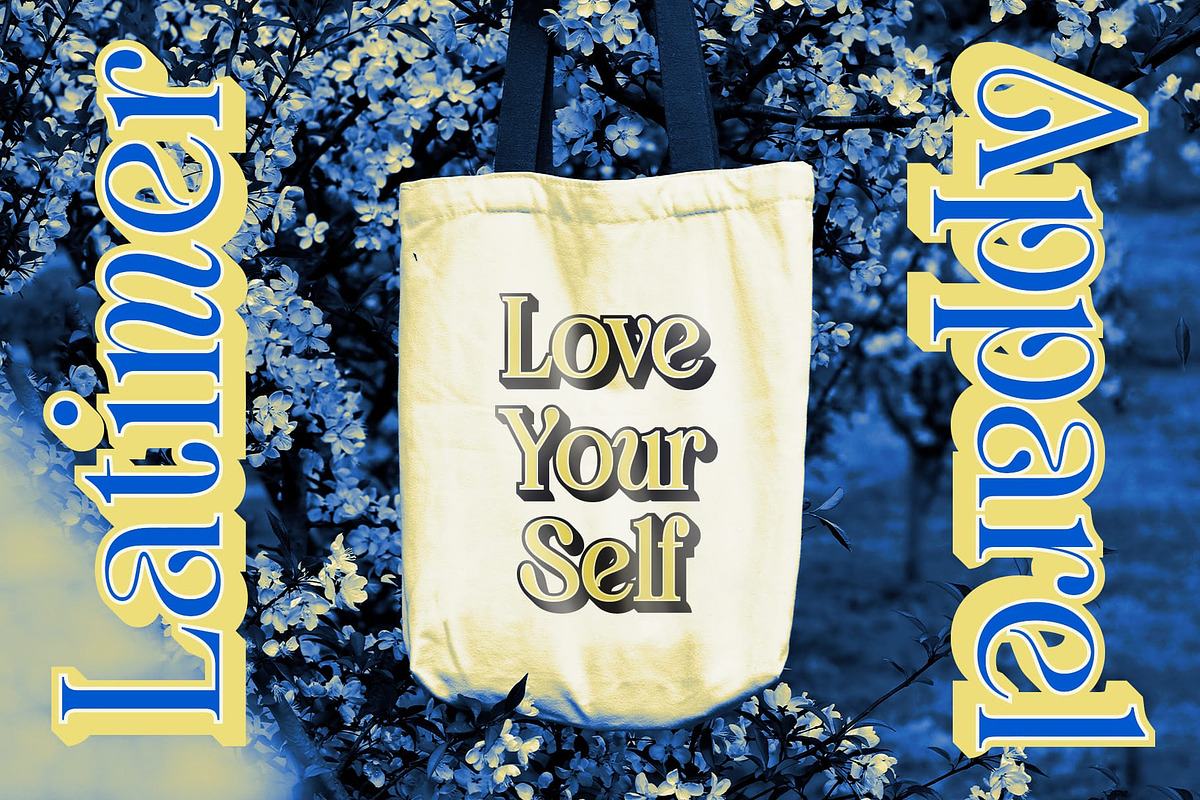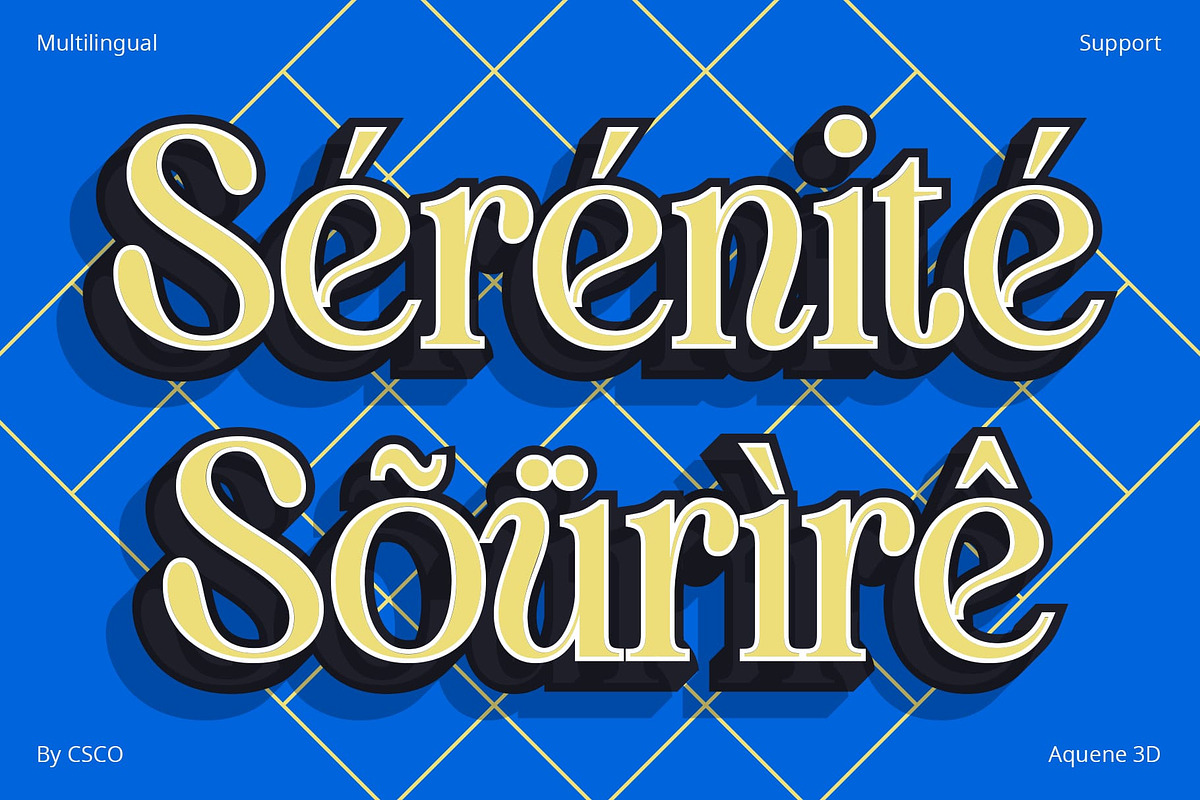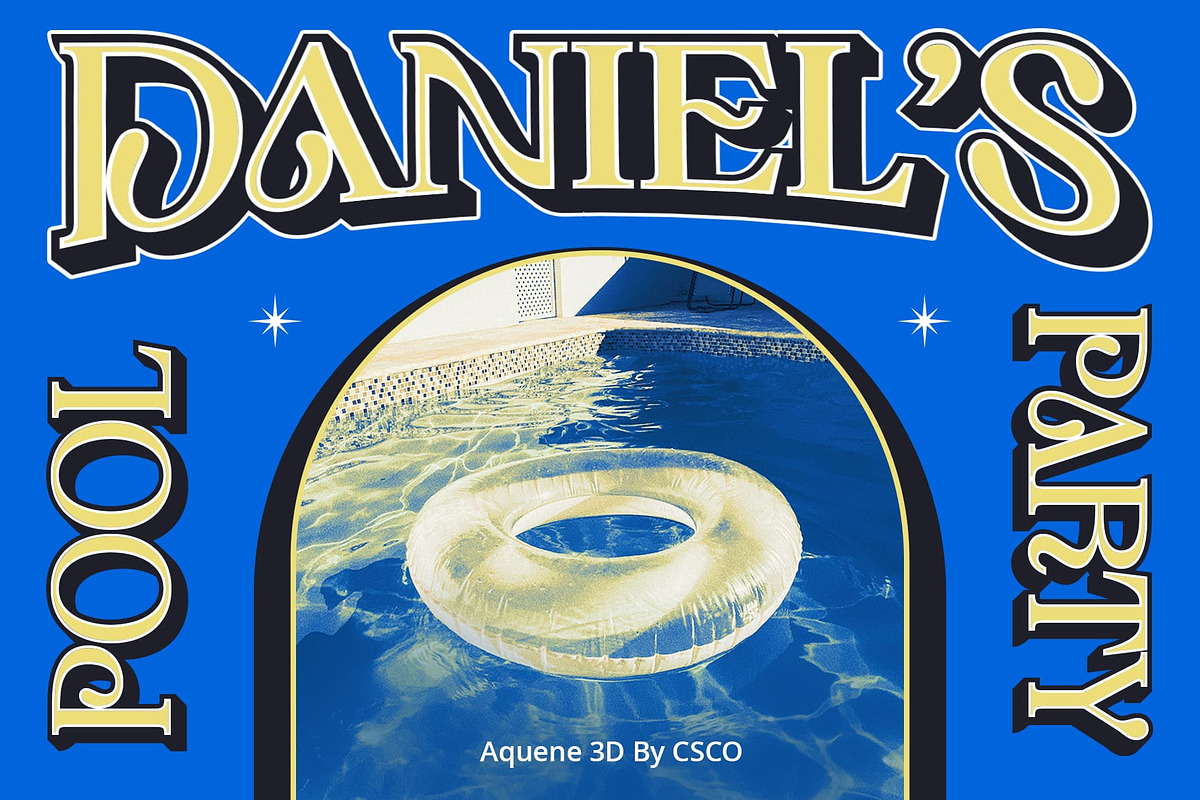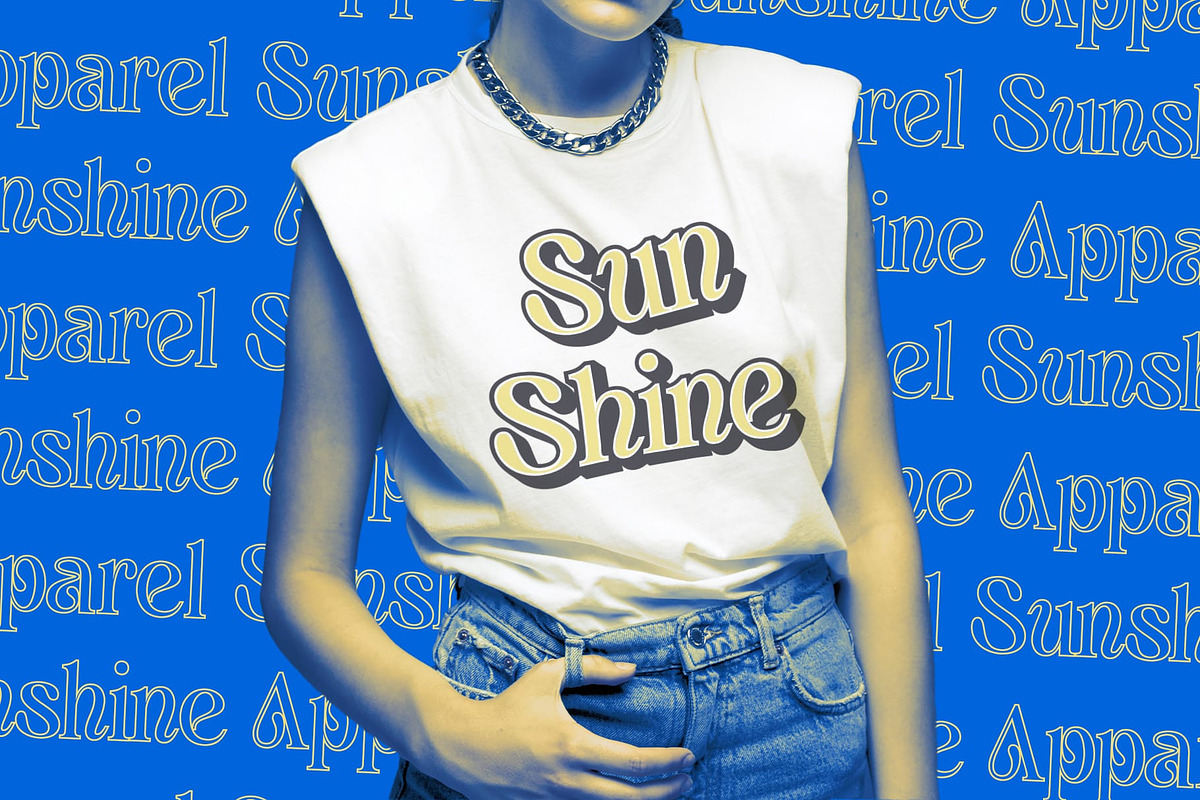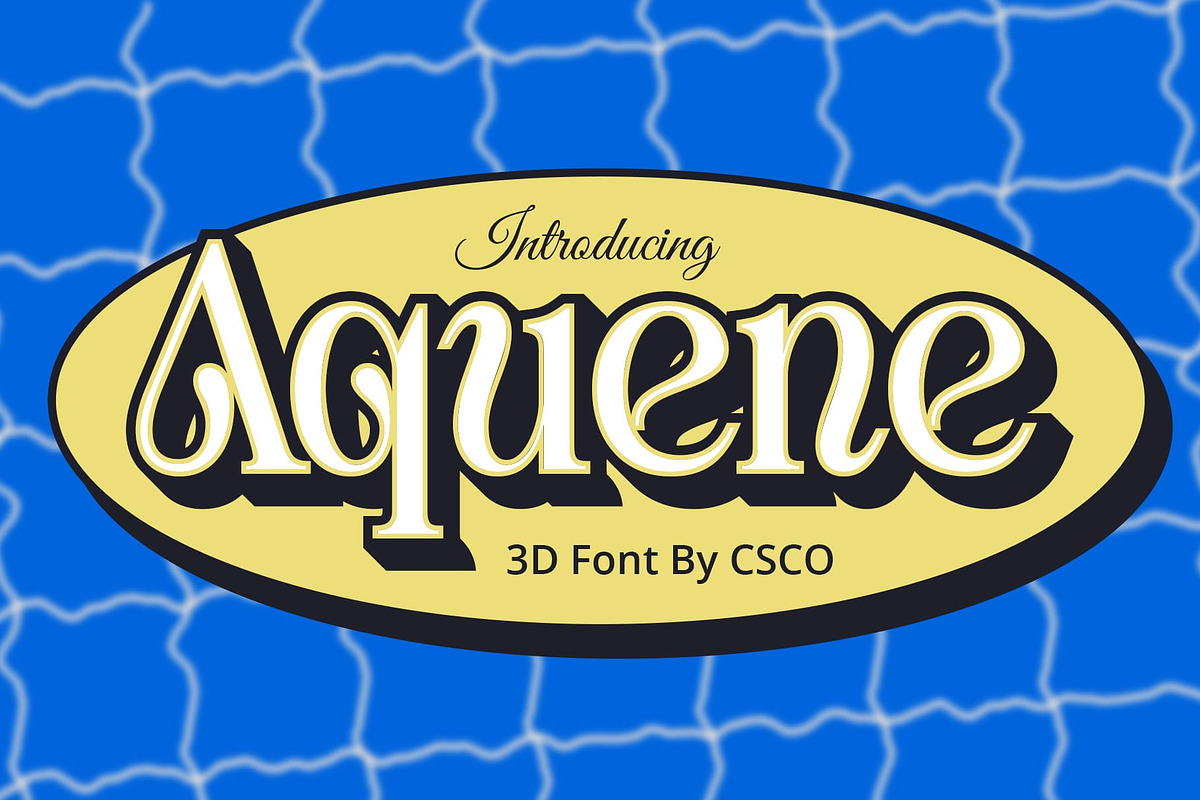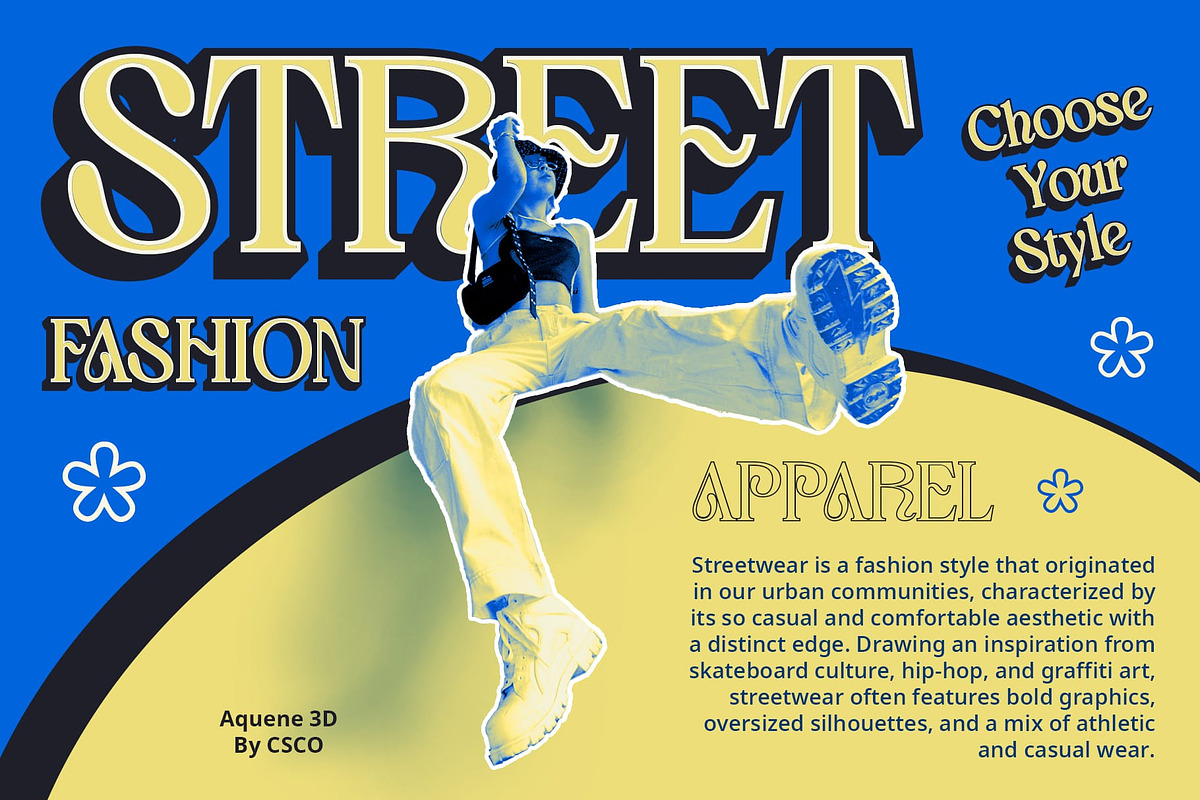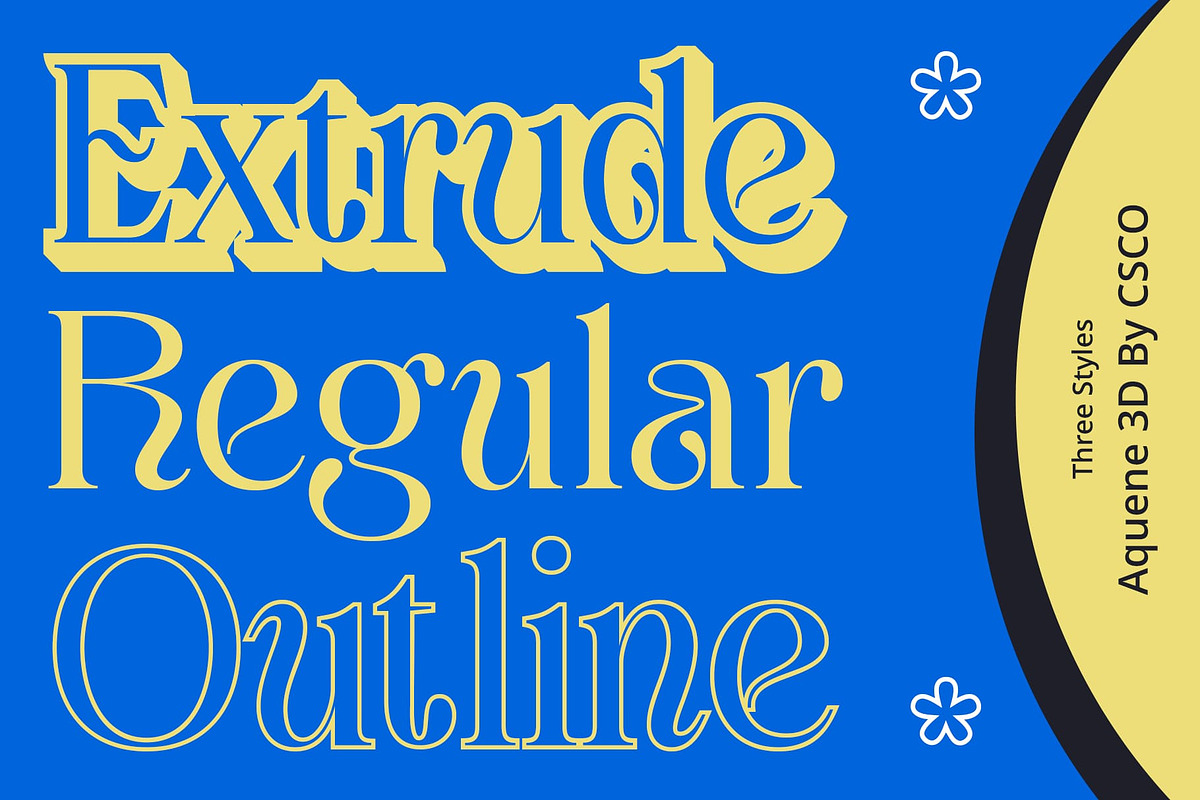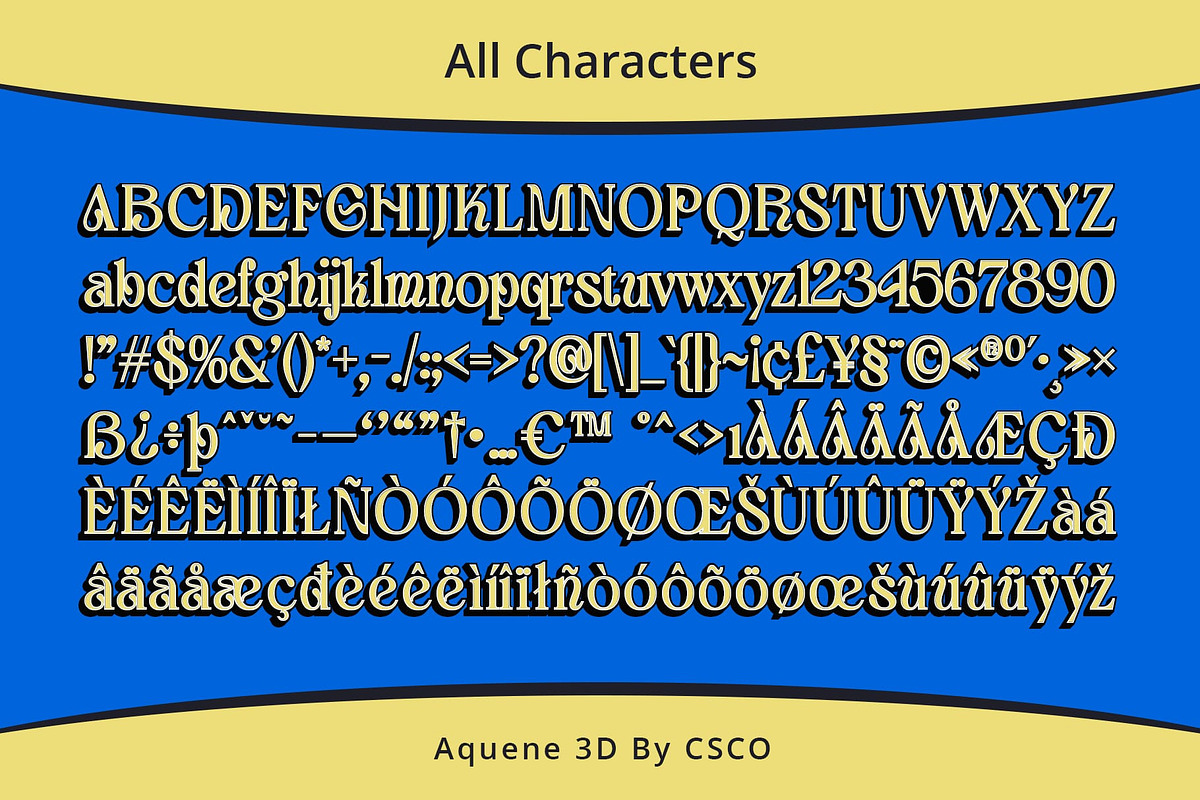
Aquene 3D
Aquene 3D: A Retro-Funky Display Typeface
Vintage Vibes with a Twist Aquene 3D brings retro-funky charm to the forefront with its serif display style inspired by the Art Nouveau movement. The font exudes a distinct personality reminiscent of the past, yet infused with a modern flair.
Sculpted in Three Dimensions Featuring captivating 3D effects, This font adds depth and dimension to each character, elevating its visual impact. The combination of retro aesthetics and contemporary technology results in a font that stands out in any display setting.
Versatile Retro Appeal Tailored for display purposes, This font shines in a variety of contexts, from posters and advertisements to digital banners. Its retro-funky vibe lends a unique touch to branding, editorial design, and more.
Art Nouveau Inspiration Drawing inspiration from the Art Nouveau movement, This font incorporates intricate details and decorative elements characteristic of the era. This nostalgic nod adds an extra layer of charm to the font’s overall design.
Retro Funky Revival This font revives the retro-funky aesthetic of the Art Nouveau era with a modern twist. Its 3D effects and vintage-inspired design make it a versatile choice for a wide range of display projects, infusing them with nostalgic charm and visual appeal. Step into the world of This font and embark on a journey through retro-funky nostalgia.
- Aquene Regular
- Aquene Outline
- Aquene Extrude Right
- Aquene Extrude Left